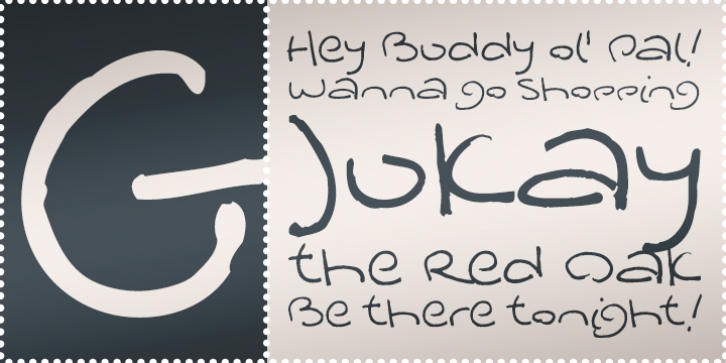
Jukay BTN was designed by Stuart Sandler and published by Breaking the Norm. Jukay BTN contains 1 style.
Jukay is a playful, handwriting typeface inspired by teenage mall rats and notebook scribbles.
Perfect for scrapbooking and journaling!